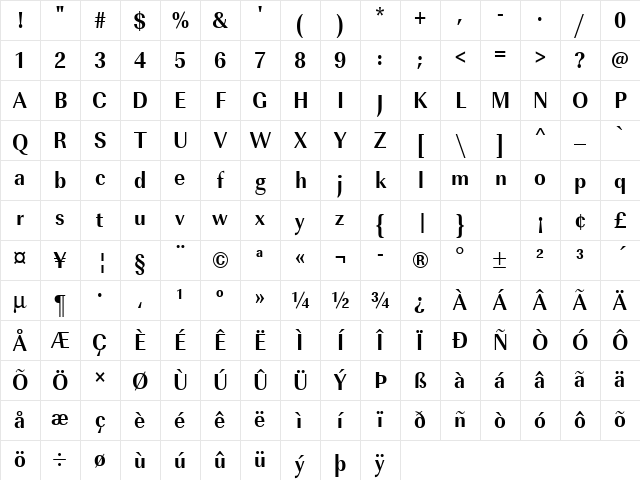
URWImperialTExtNar Bold
Design Context for URWImperialTExtNar
URWImperialTExtNar is a composed and adaptable typeface that performs quietly and consistently across a wide range of design contexts. Its bold stroke weight gives it real presence on the page.
Pro Tip: Use URWImperialTExtNar in both headline and body roles to test its range before committing to a single application.